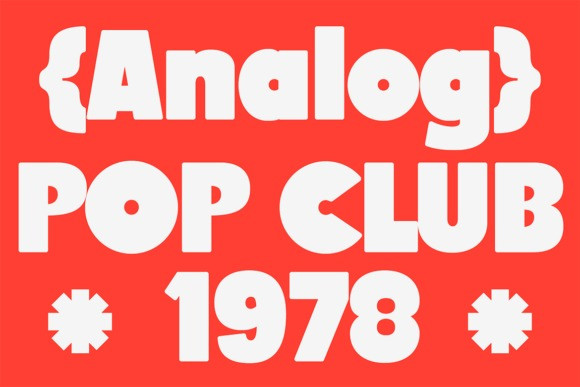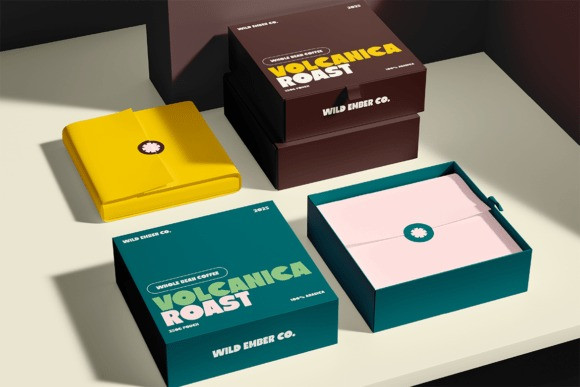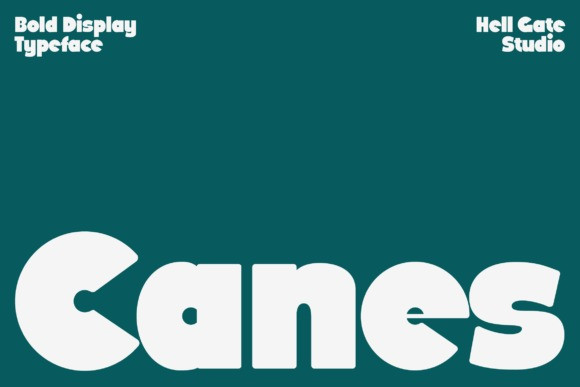
Canes Font
Canes Font – an artistic typeface versatile enough to complement an elegant theme. Bask in the flexibility to seamlessly modify the text and color, making it uniquely yours. Delivered in high-resolution OTF, Canes font guarantees top quality, ensuring your artistic ventures are always refined and captivating.